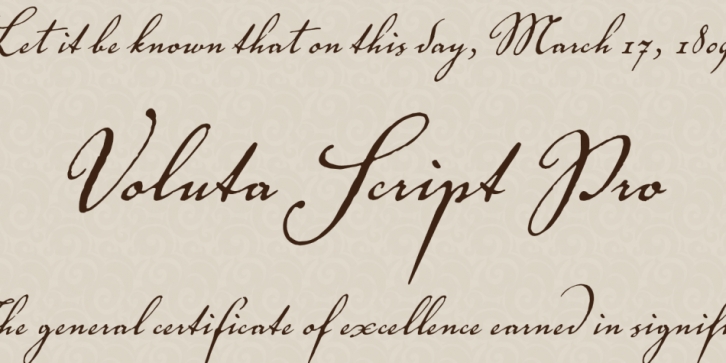
Austrian designer Viktor Solt-Bittner created the 1998 Adobe Original typeface, Voluta Script, for use in a guide to the Austrian Gallery at Castle Belvedere. A volute (Latin “volutaâ€) is a spiral or scroll-shaped ornament used in the Baroque architecture of Castle Belvedere, similar to the swashes in this typeface. The castle was the historic residence of Prince Eugene of Savoy, one of the great military commanders of the 18th century and a prominent figure in Austrian history. When asked to create a typeface based on the calligraphy of the period to illustrate Eugene’s epic, Solt-Bittner turned for inspiration to Kurrent writing, a cursive blackletter style. Solt-Bittner created a hybrid style that embodies the rhythm and basic forms of its ancestors with large capitals, dark vertical strokes, and flourished beginning and ending characters. Voluta Script allows designers to evoke the Baroque era or to lend a hint of majestic grace to contemporary typesetting.